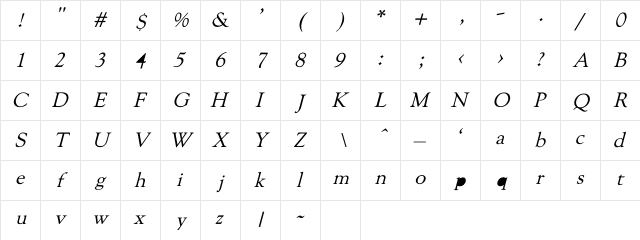
GourdaItal Regular
Design Context for GourdaItal
GourdaItal is a composed and adaptable typeface that performs quietly and consistently across a wide range of design contexts.
Pro Tip: Use GourdaItal in both headline and body roles to test its range before committing to a single application.